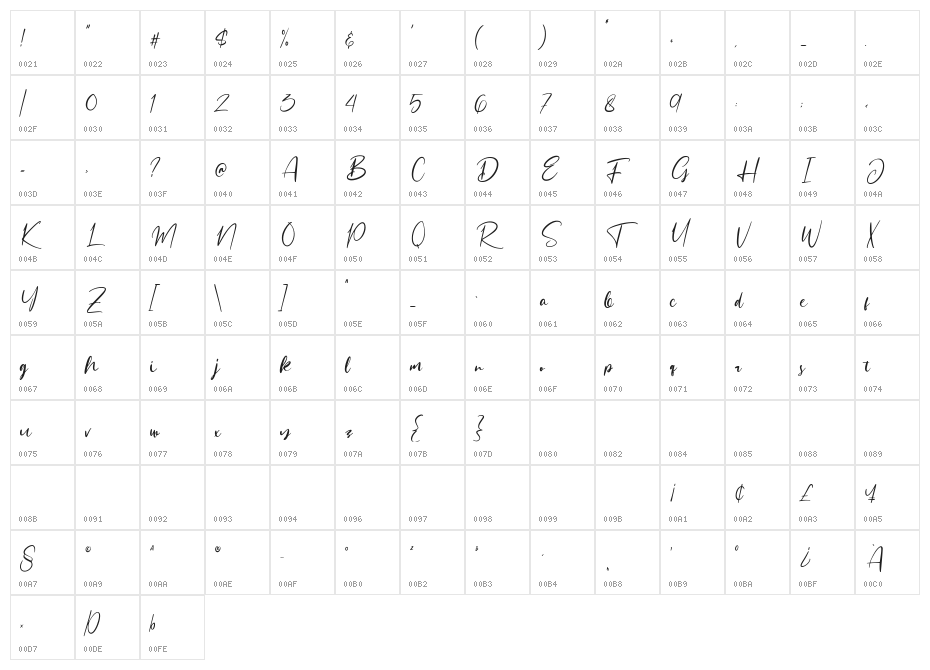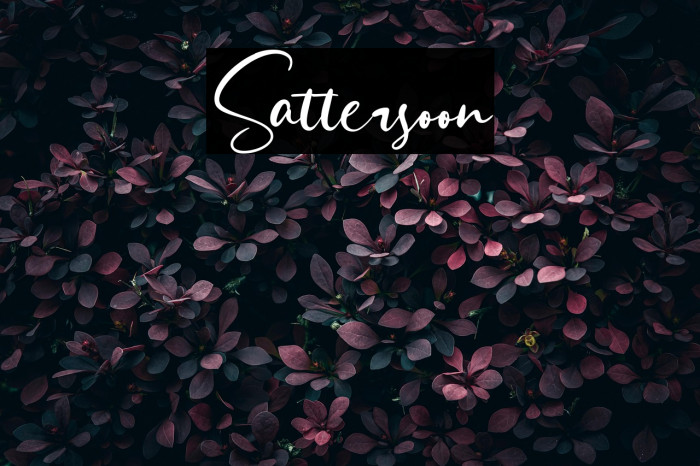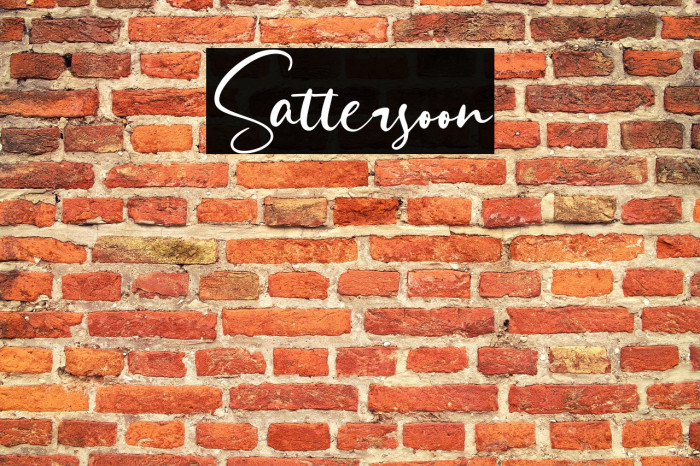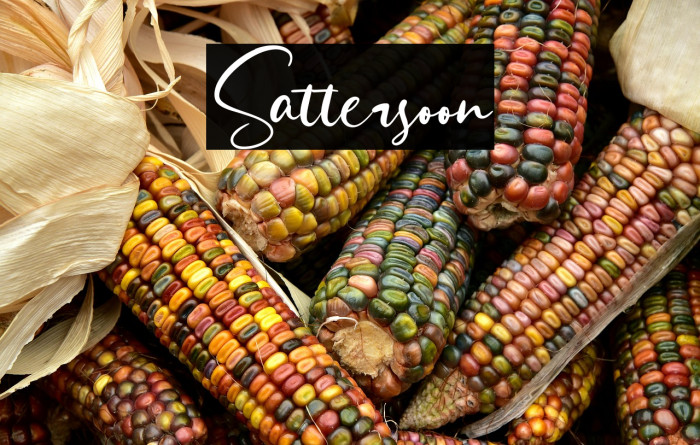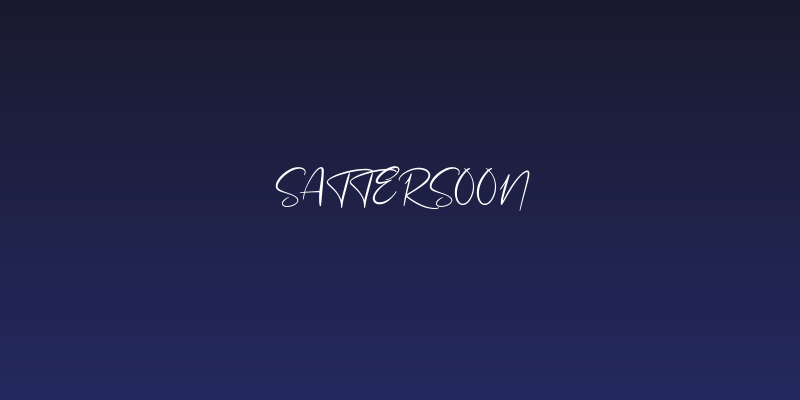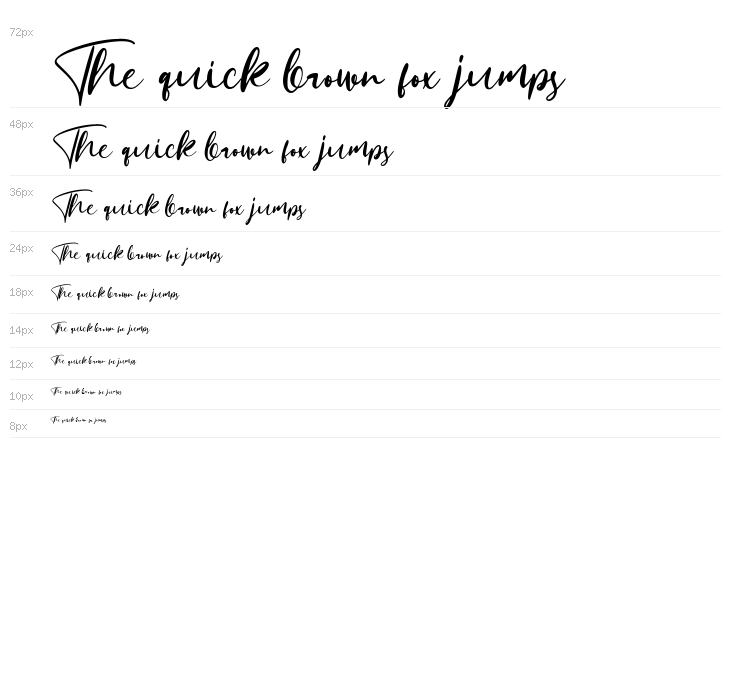
Sattersoon Font
Sattersoon Description
This font exudes a dynamic and expressive style, characterized by its fluid, cursive script that mimics natural handwriting. The uppercase letters are elegantly elongated with sweeping curves, while the lowercase letters maintain a consistent flow with a slightly more compact form. The numbers are distinct and maintain the same fluidity, adding a cohesive look across all characters. Special characters are thoughtfully integrated, enhancing the font's versatility. The overall design is both artistic and legible, making it suitable for a variety of creative applications.